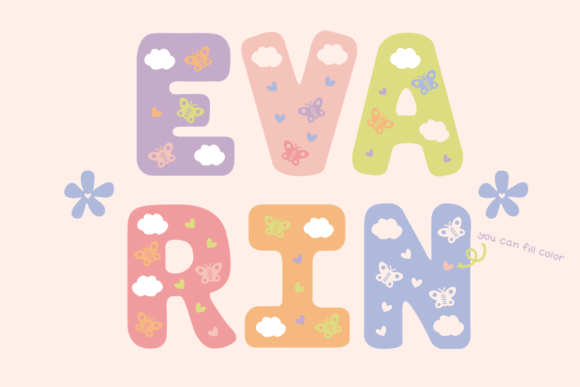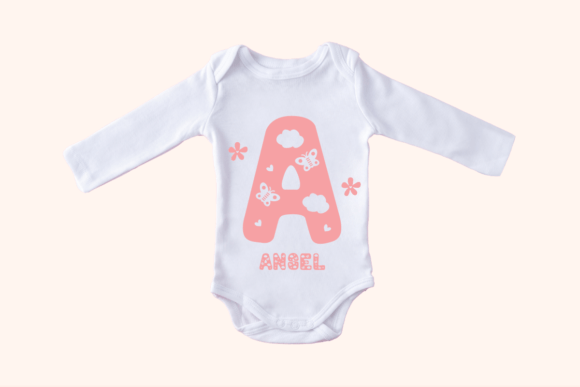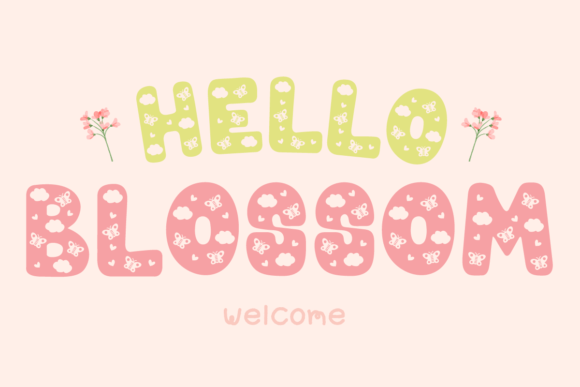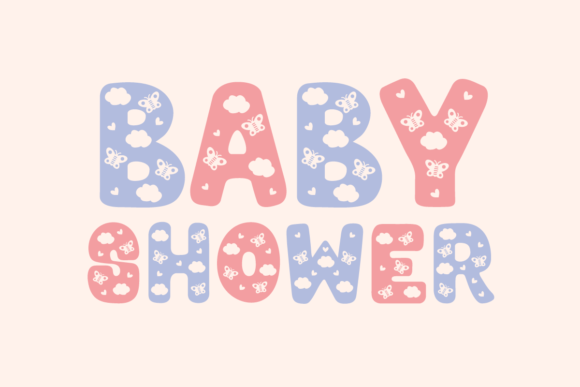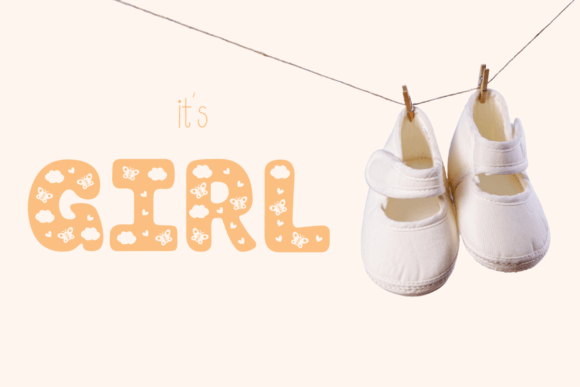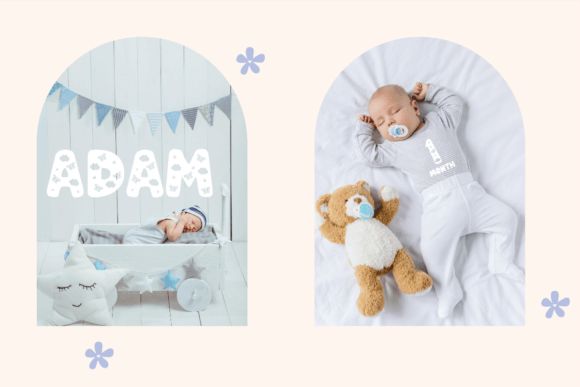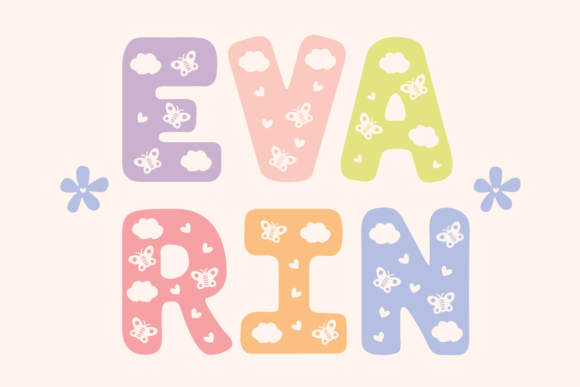
Evarin Font: Add a Touch of Whimsy to Your Designs
Are you looking for a font that can add a dash of charm and sweetness to your designs? Look no further than Evarin Font! This adorable decorative font features tiny and playful clouds, butterflies, and hearts that are sure to captivate your audience. In this article, we’ll take a closer look at Evarin Font and explore its features, uses, and benefits for designers and crafters.
What is Evarin Font?
Evarin Font is a unique and creative typeface that combines traditional lettering with whimsical illustrations. The font features tiny clouds, butterflies, and hearts that are intricately woven into the letters, making it a standout choice for designers and crafters. Evarin Font is perfect for projects that require a touch of playfulness, charm, and sweetness.
Key Features of Evarin Font
- Cute and Playful Design: Evarin Font features a delightful design that is sure to bring a smile to your face. The tiny clouds, butterflies, and hearts add a touch of whimsy to your designs.
- Decorative and Versatile: Evarin Font is a decorative font that can be used for a variety of projects, from digital designs to print materials.
- Easily Readable: Despite its decorative nature, Evarin Font is easily readable, making it perfect for body text and headings.
Uses of Evarin Font
Evarin Font is a versatile typeface that can be used for a wide range of projects, including:
- Digital Designs: Use Evarin Font to create adorable social media graphics, blog posts, and website headers.
- Print Materials: Add a touch of whimsy to your print materials, such as business cards, brochures, and posters.
- Crafting Projects: Evarin Font is perfect for crafters who love to create handmade cards, scrapbook pages, and other paper crafts.
- Wedding and Party Decor: Use Evarin Font to create beautiful wedding and party decorations, such as invitations, banners, and garlands.
Benefits of Using Evarin Font
So, why should you choose Evarin Font for your designs? Here are just a few benefits:
- Adds a Touch of Whimsy: Evarin Font adds a dash of playfulness and charm to your designs, making them stand out from the crowd.
- Increases Engagement: The cute and playful design of Evarin Font is sure to captivate your audience and increase engagement.
- Versatile and Flexible: Evarin Font can be used for a wide range of projects, from digital designs to print materials.
- Easily Customizable: Evarin Font is easily customizable, allowing you to adjust the size, color, and style to suit your needs.
Tips for Using Evarin Font
Here are a few tips for using Evarin Font effectively:
- Use it Sparingly: Evarin Font is a decorative font, so use it sparingly to avoid overwhelming your design.
- Pair it with Other Fonts: Pair Evarin Font with other fonts to create a unique and visually appealing design.
- Experiment with Colors: Experiment with different colors to find the perfect combination that suits your design.
Evarin Font is a delightful and versatile typeface that can add a touch of whimsy and charm to your designs. With its cute and playful design, Evarin Font is perfect for designers and crafters who want to create adorable and engaging projects. Whether you’re working on digital designs, print materials, or crafting projects, Evarin Font is sure to be a great choice.